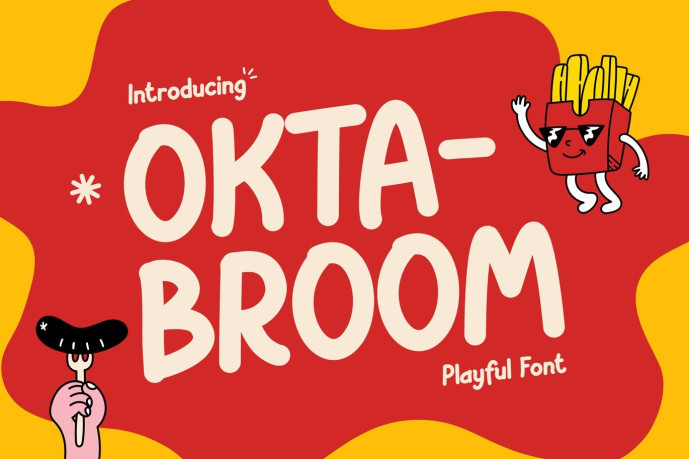
Oktabroom Font
Oktabroom Font is a playful food display typeface designed for bold menus and eye-catching promotions, featuring chunky rounded letterforms, soft curves, and a lively rhythm that feels friendly and energetic. Its low-contrast structure and bouncy proportions keep text readable while delivering a strong visual punch for food branding, kids menus, packaging, and promotional posters.
From fast-food posters and kids meal menus to snack packaging and street-food branding, Oktabroom turns simple words into appetite-grabbing headlines. Its cheerful personality helps brands feel fun, affordable, and inviting—perfect for designs that need to stand out quickly and connect with customers through warmth and playful energy.